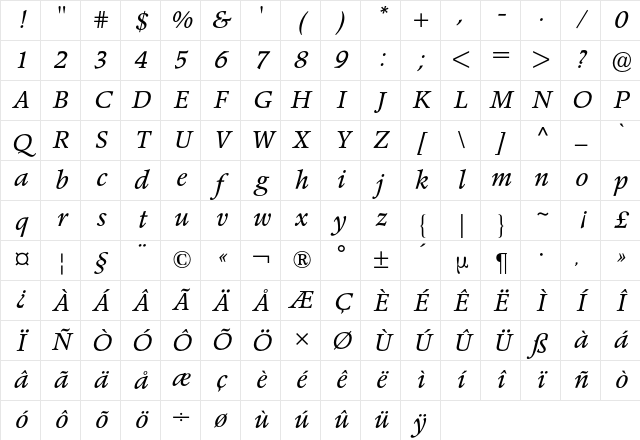
Poppl-Pontifex BQ Regular
Poppl-Pontifex BQ Family
Poppl-Pontifex BQ Regular
Design Context for Poppl-Pontifex BQ
Poppl-Pontifex BQ is a composed and adaptable typeface that performs quietly and consistently across a wide range of design contexts.